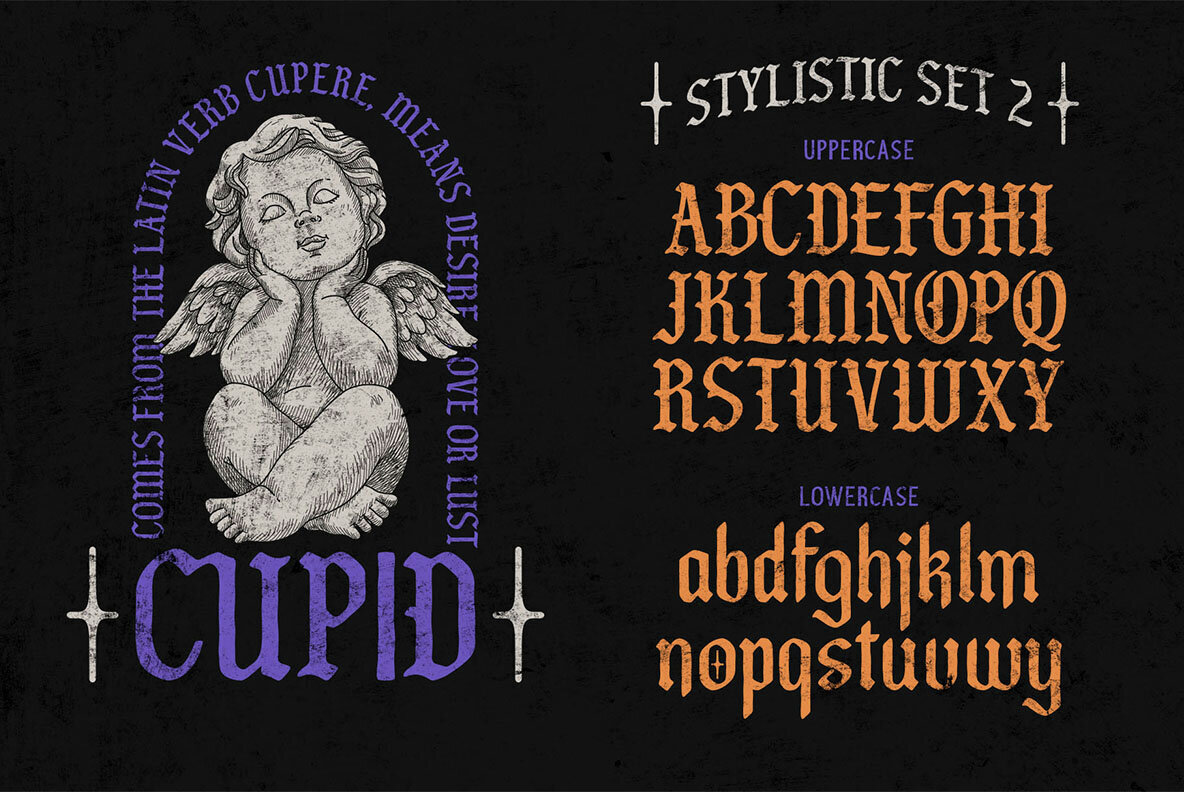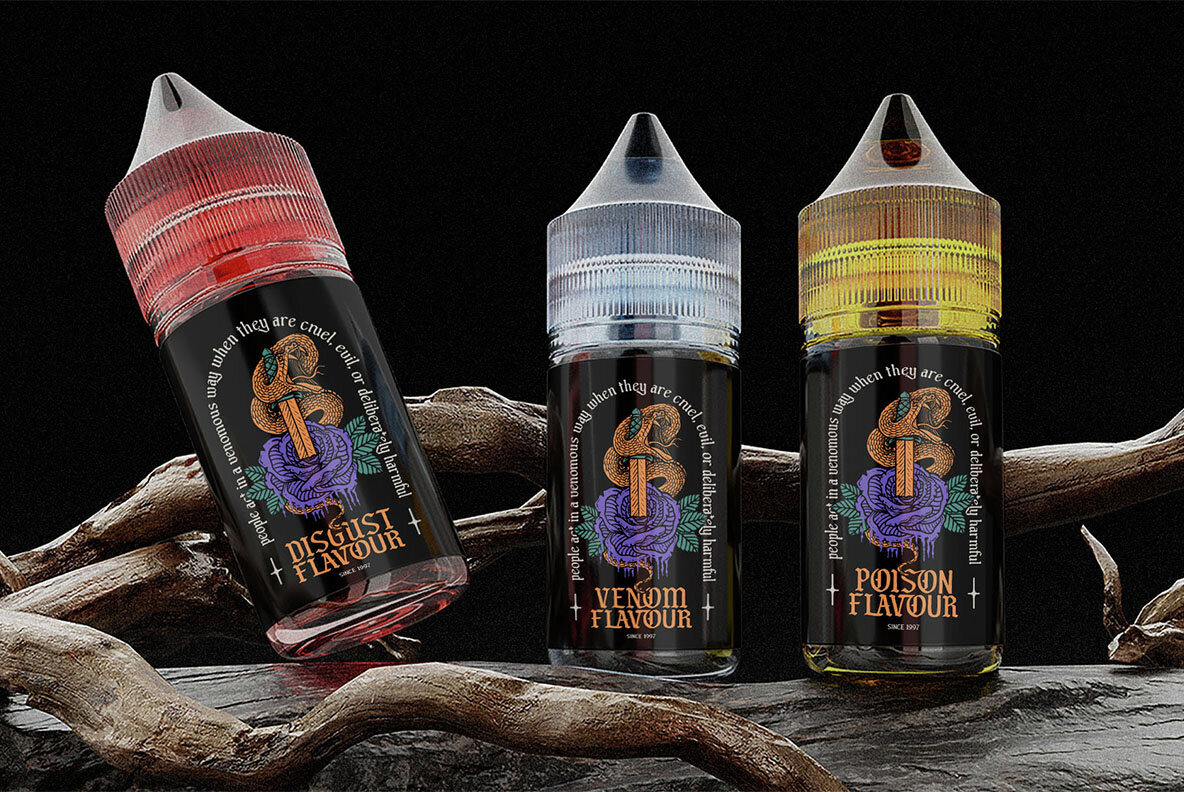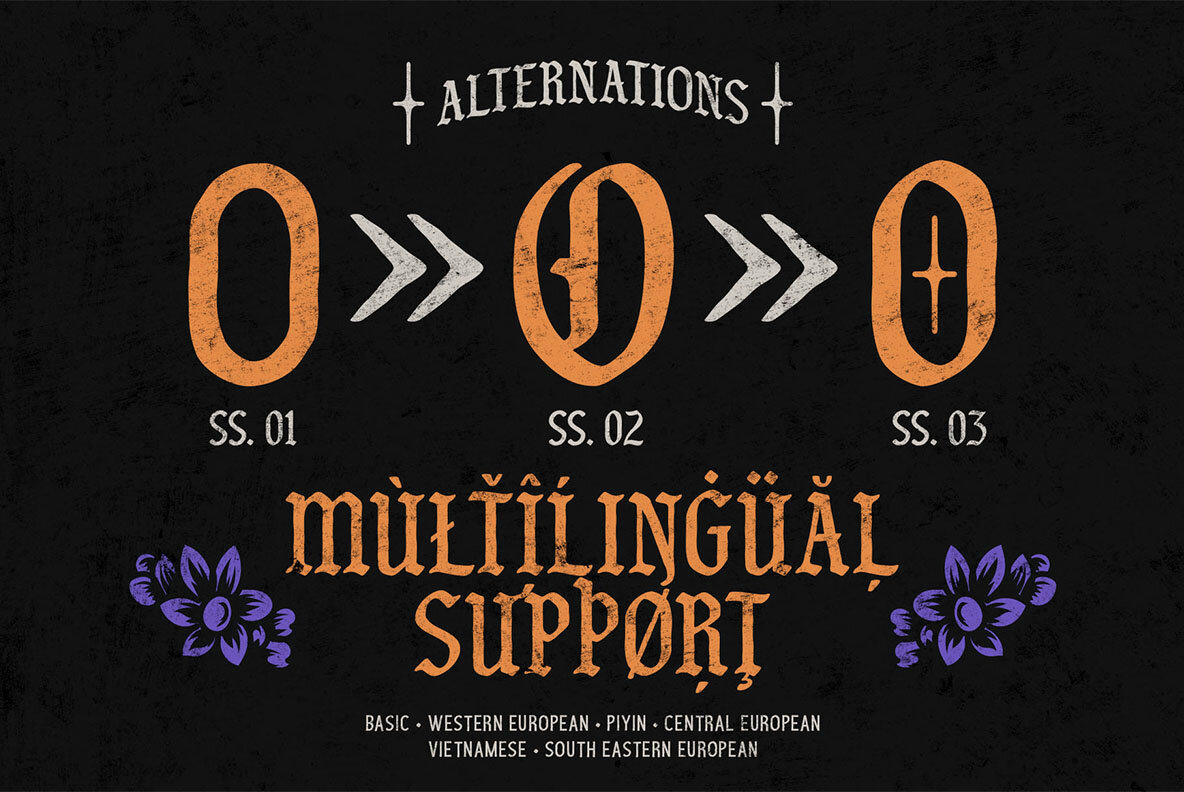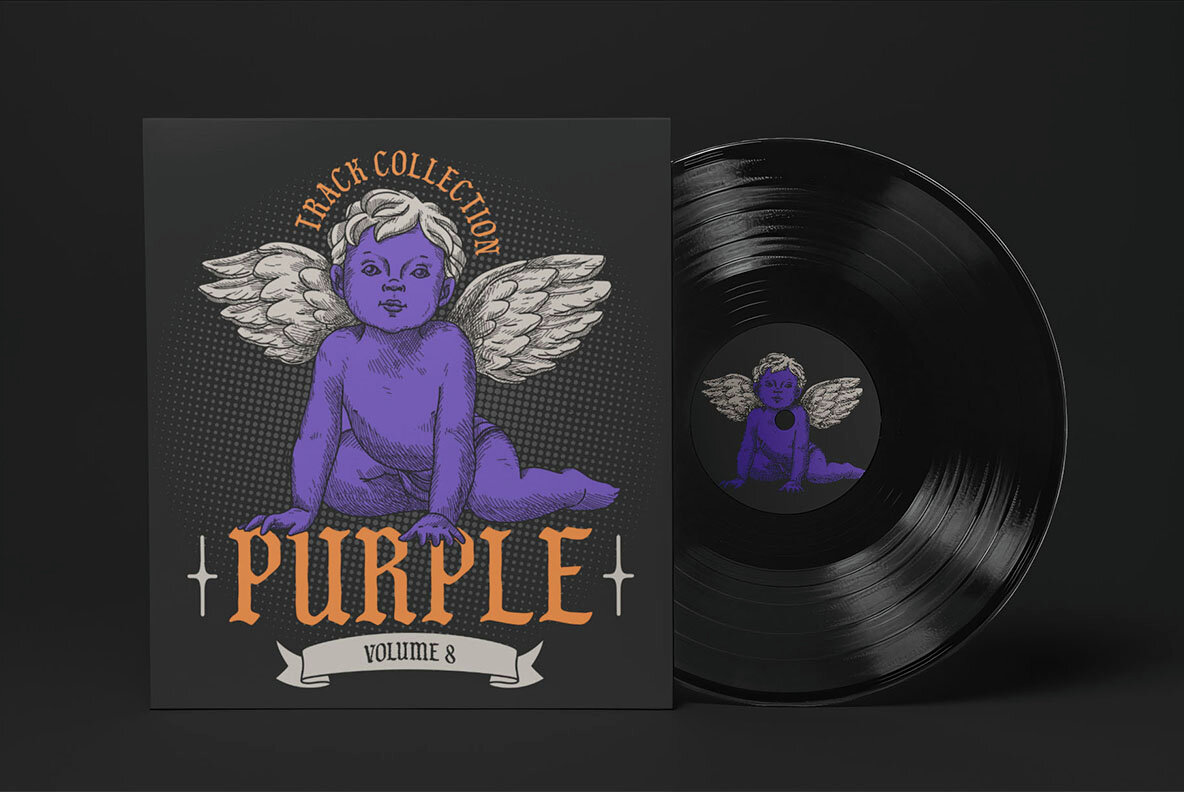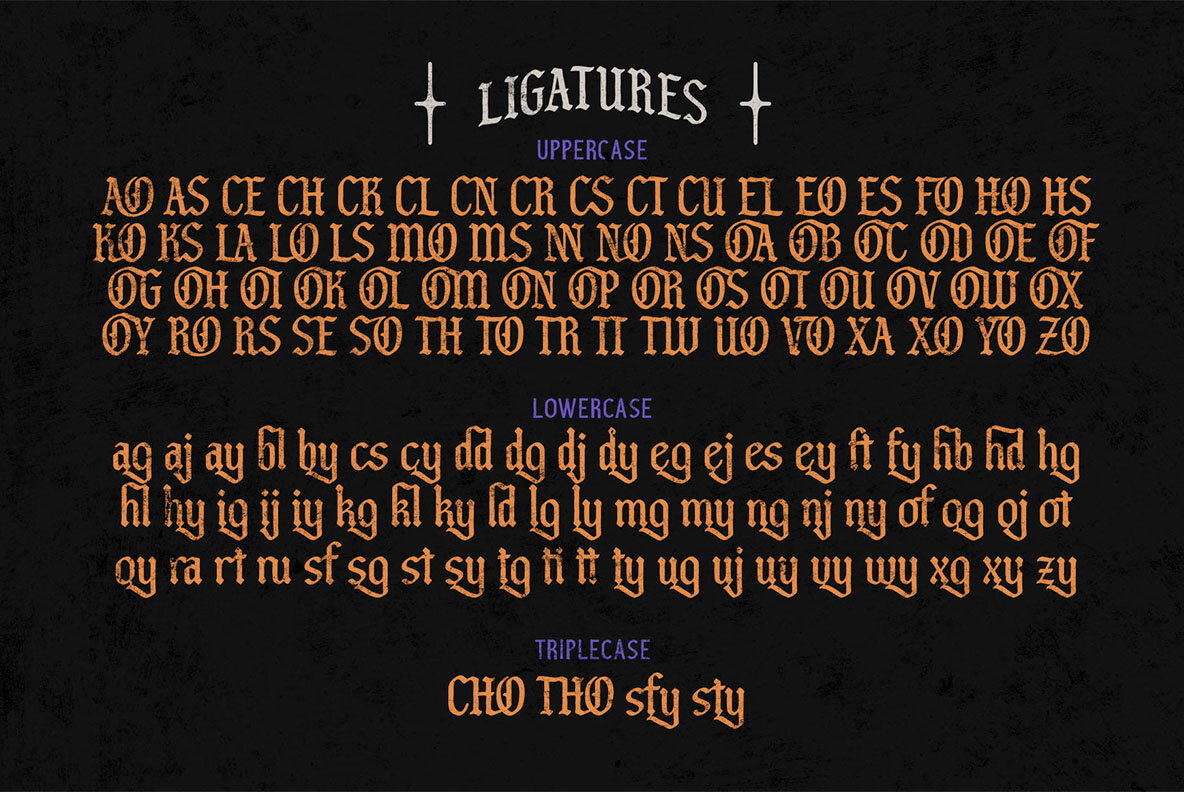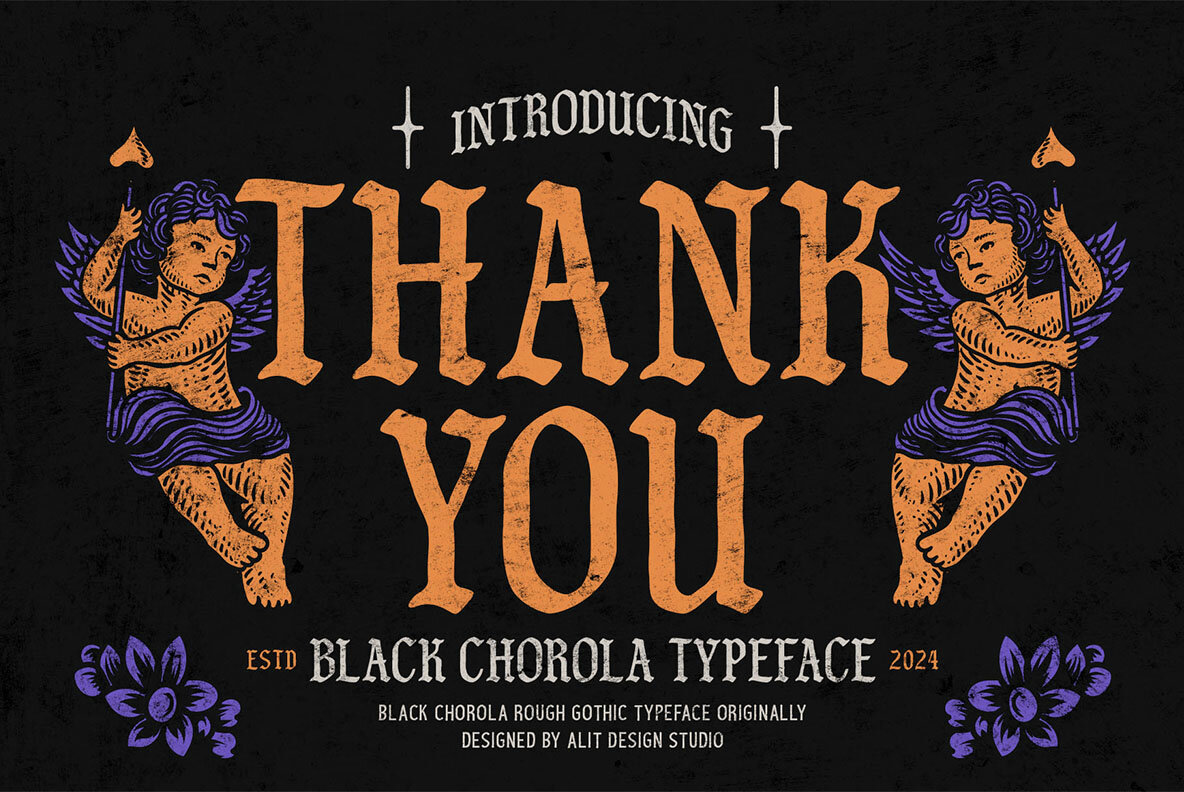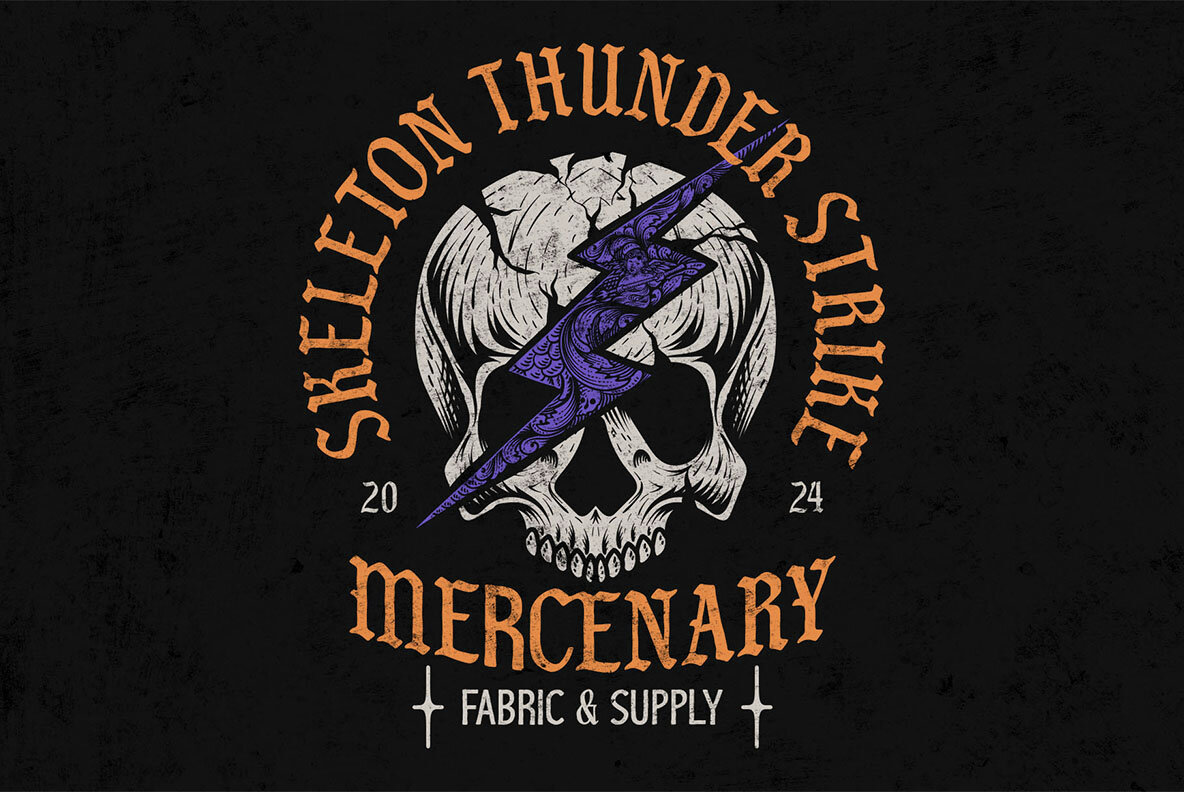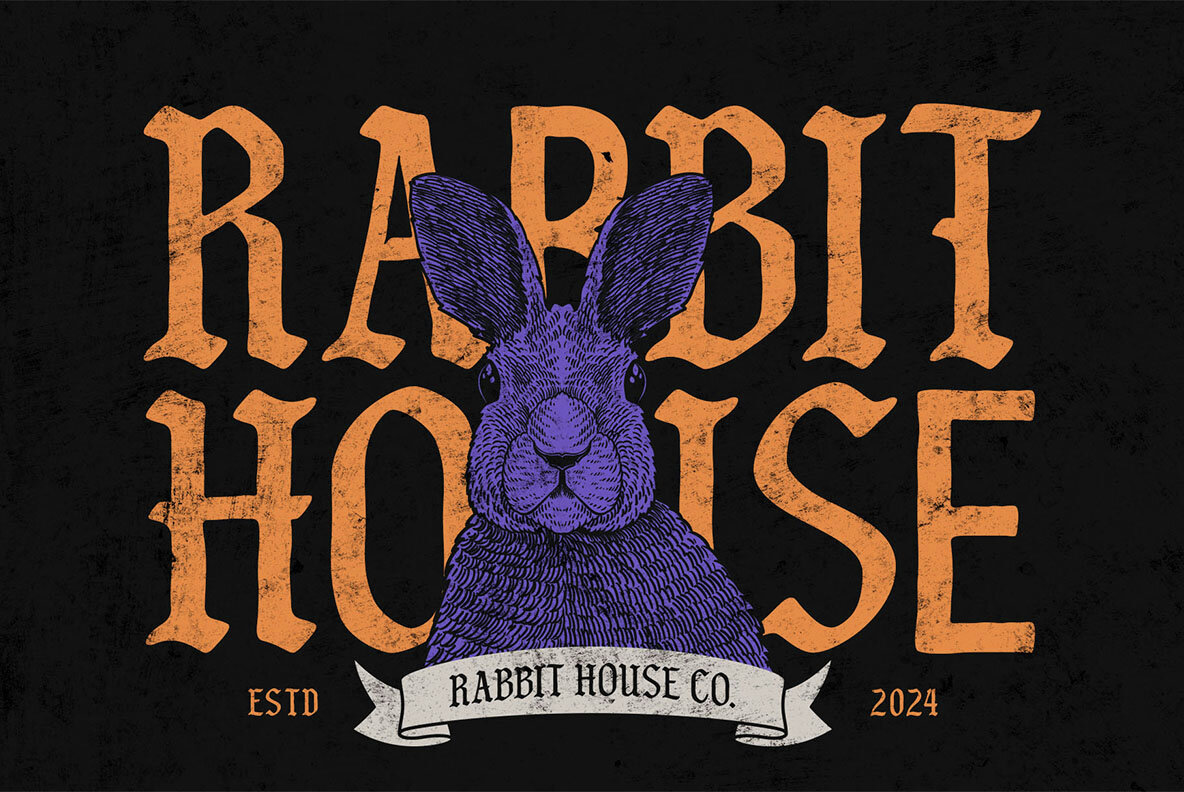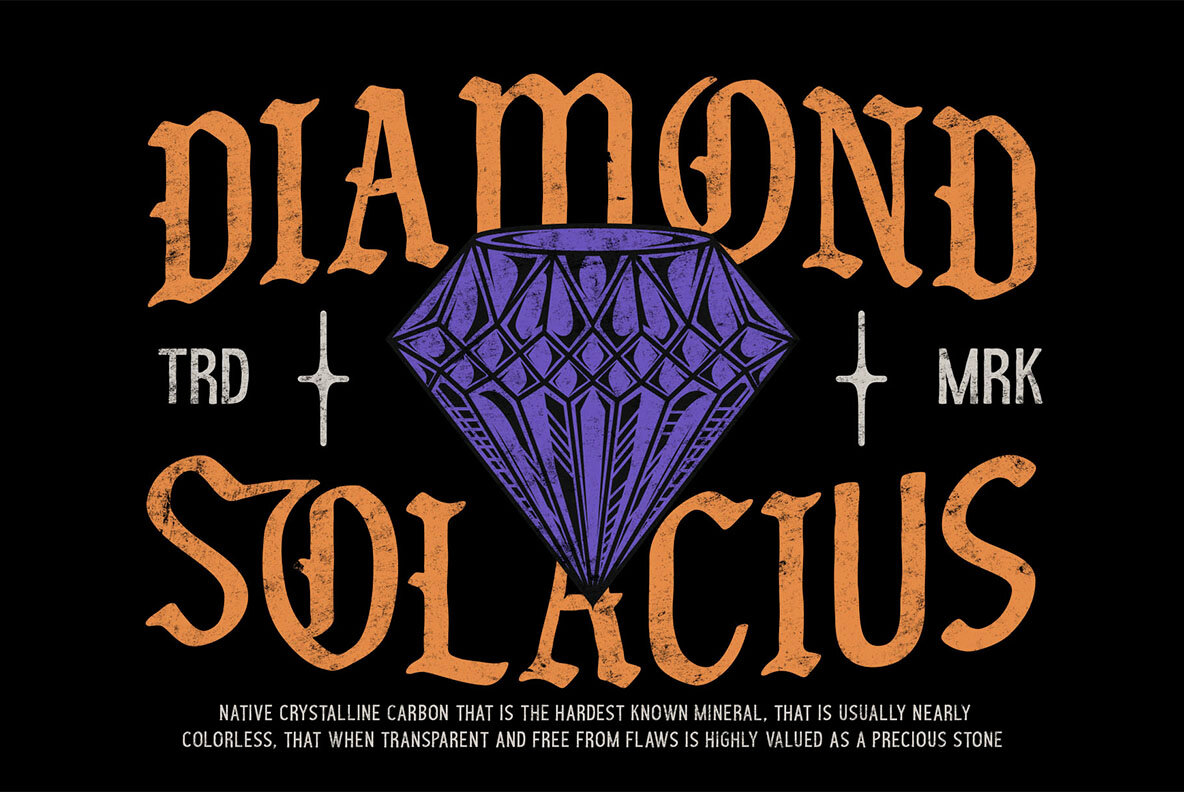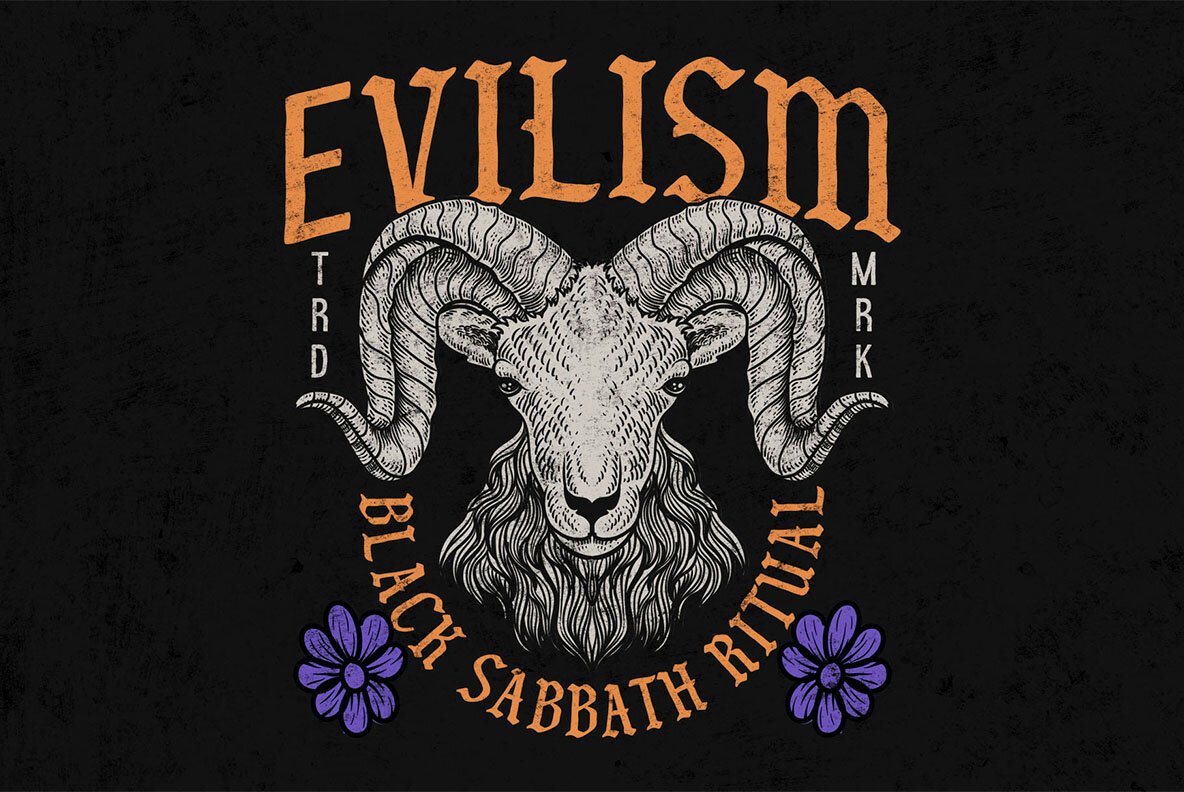
Black Chorola Font
Black Chorola Regular
Unleash the power of old-world charm with Black Chorola Typeface, a striking blackletter font with a raw, textured twist. This font evokes the elegance and grit of historical typography, perfect for creating bold statements in branding, posters, logos, packaging, and more. Its rugged yet refined aesthetic makes it an ideal choice for projects that call for a timeless look with a touch of edge.
Key features include an expansive character set of 700 characters, allowing you to craft diverse and detailed messages. Beautifully designed swashes and unique ligatures add flair and sophistication to your designs. Multiple alternate characters provide customization options, ensuring each word stands out. Additionally, PUA Unicode encoding makes accessing all glyphs and features user-friendly across any software. With extensive multilingual support, Black Chorola ensures your message resonates globally. Ideal for both vintage brands and modern projects with a gothic twist, Black Chorola Typeface offers the perfect blend of boldness and intricacy.